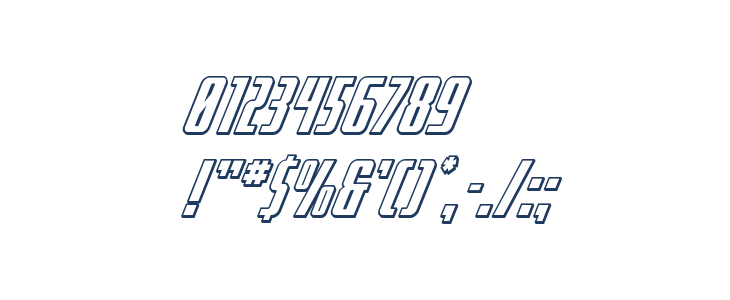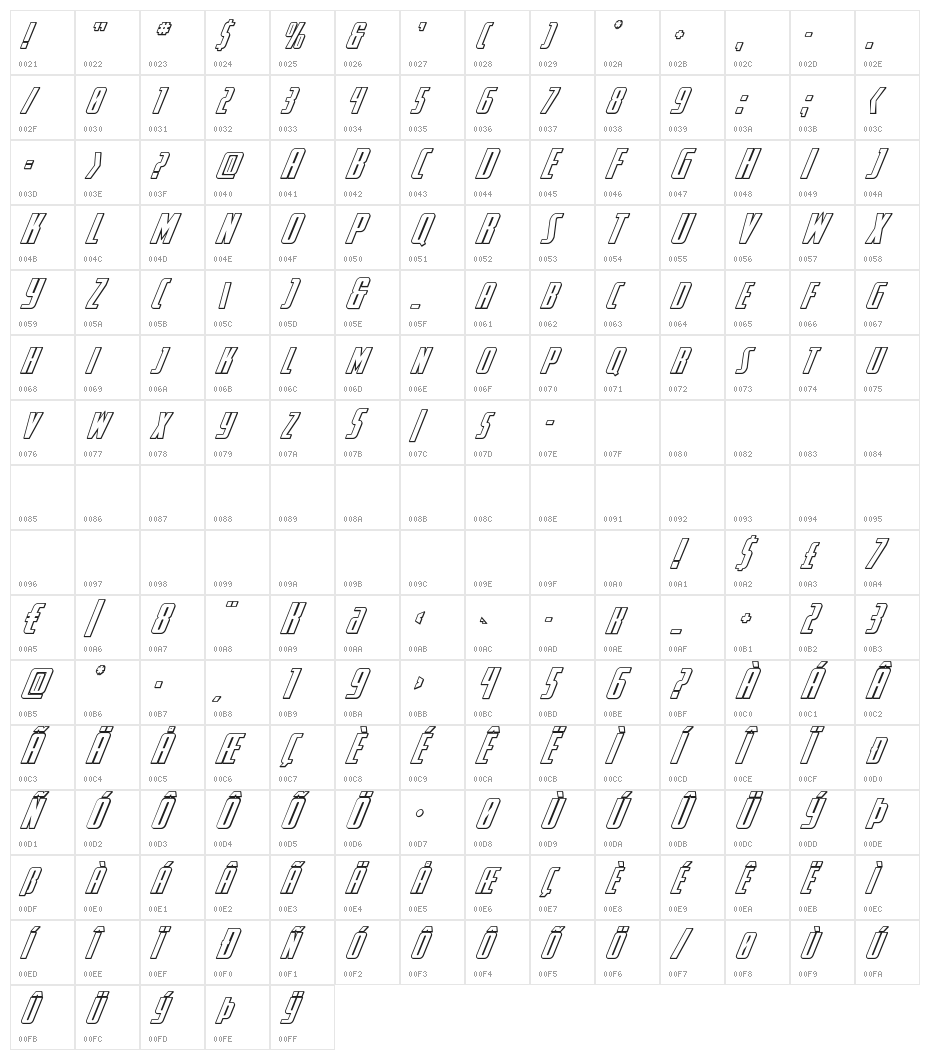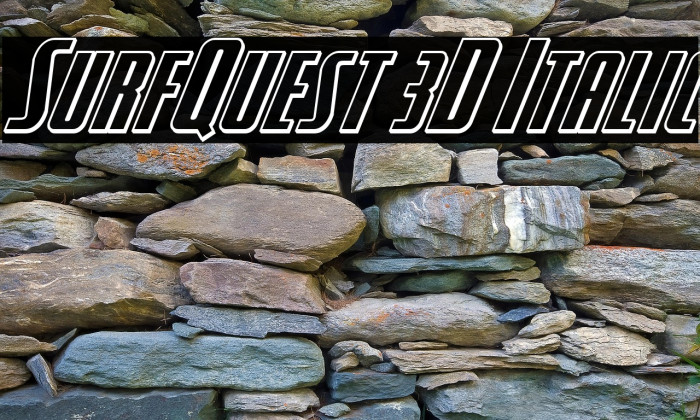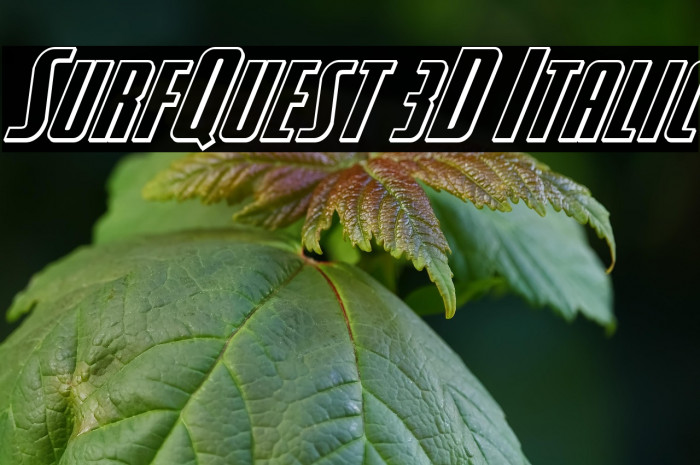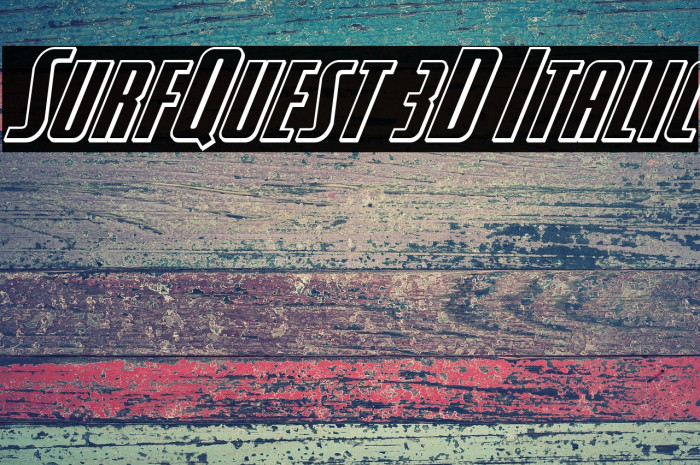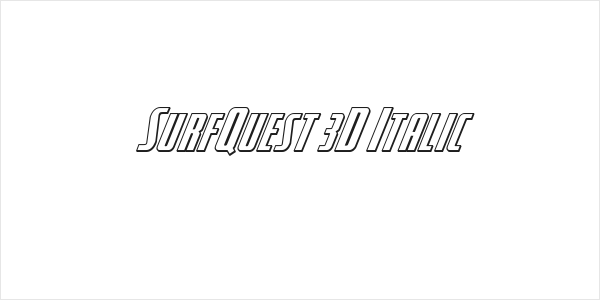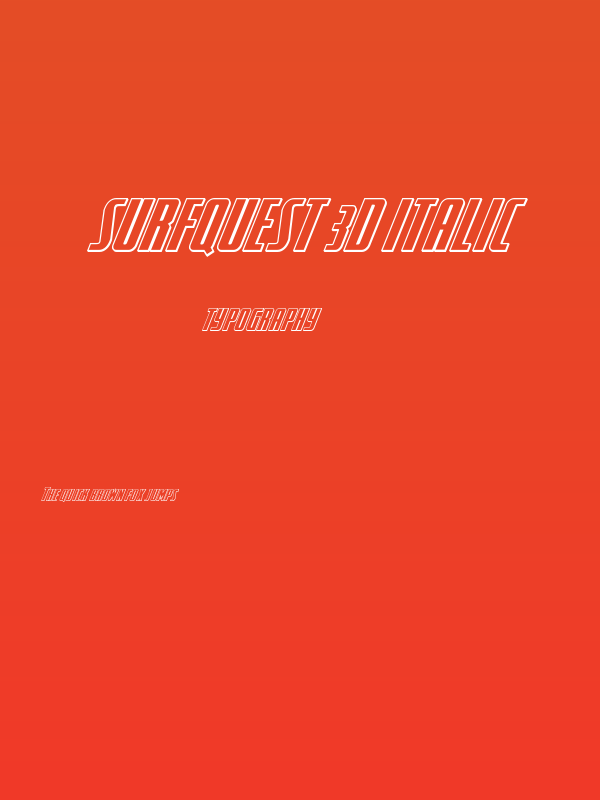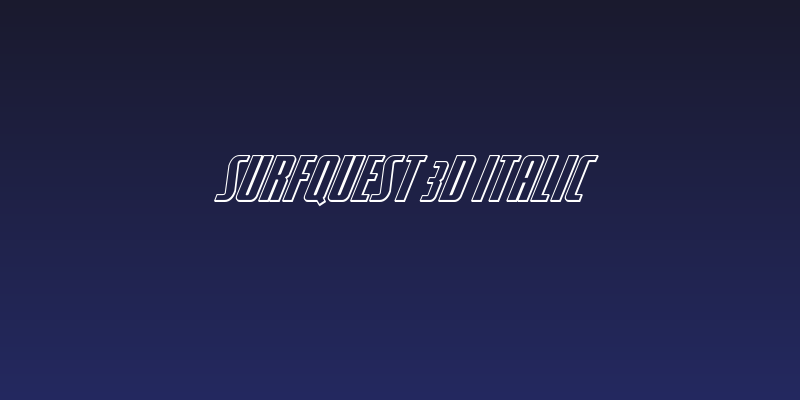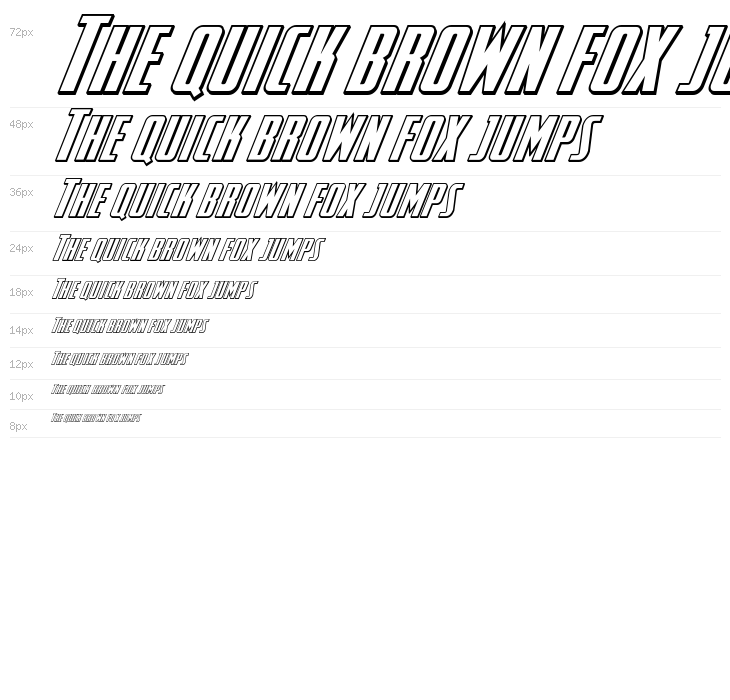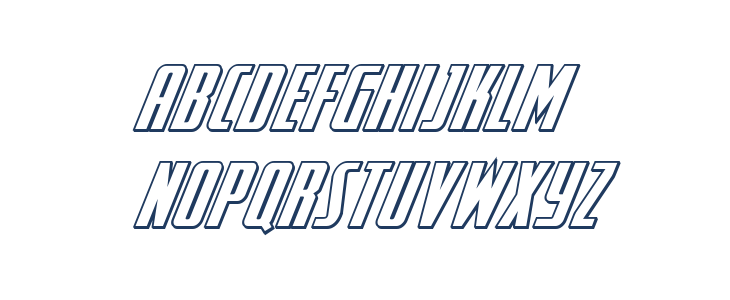
SurfQuest 3D Italic Font
SurfQuest 3D Italic Description
This font features a bold, three-dimensional design with a distinct italic slant, giving it a dynamic and energetic appearance. The characters are outlined, creating a sense of depth and movement. The uppercase letters are prominent, with sharp angles and a futuristic style. The numerals and special characters maintain the same bold and italicized characteristics, ensuring consistency throughout. The overall look is modern and eye-catching, suitable for projects that require a strong visual impact.
Proposed ProjectsIdeal for sports branding, event posters, video game titles, and dynamic logo designs.